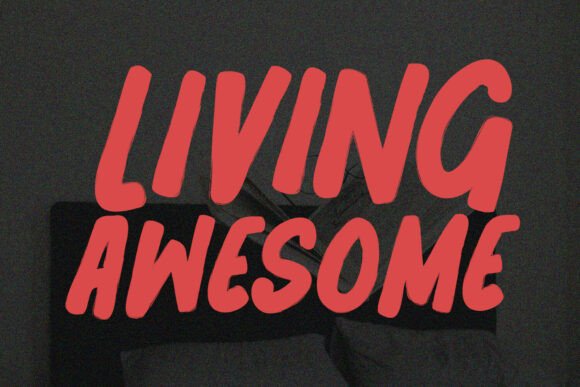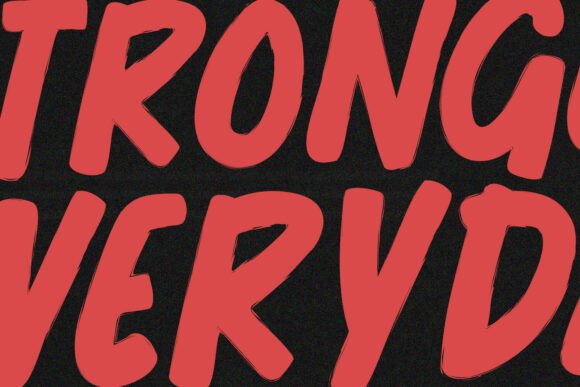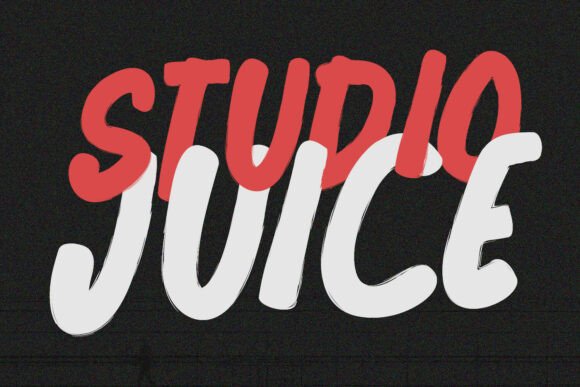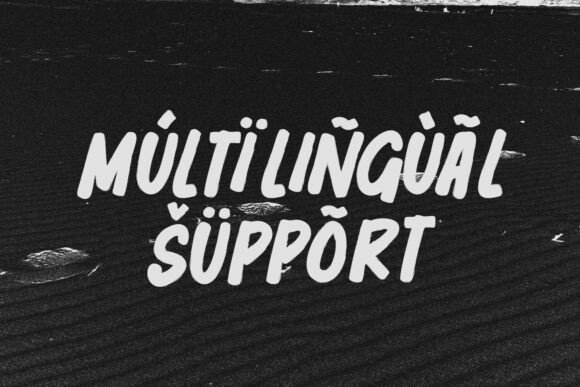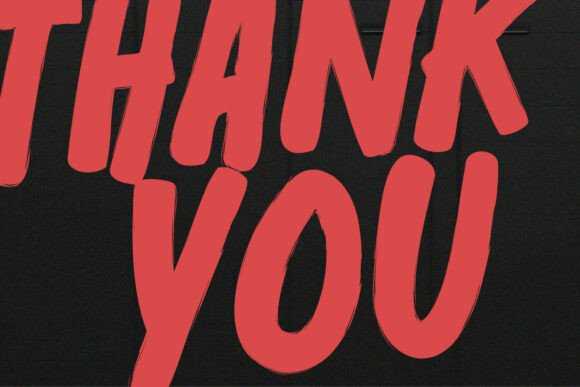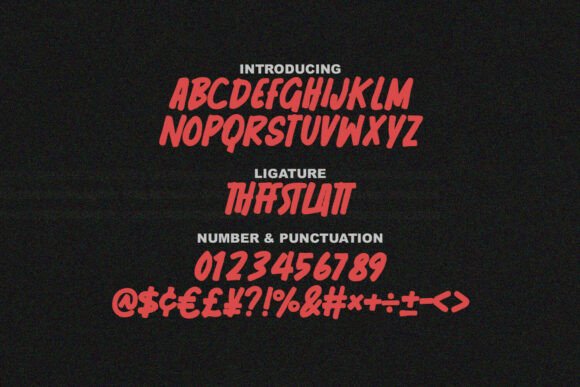
The Power of Gastetla Font: Unleashing Bold Expression in Modern Designs
Gastetla is a bold brush display font that exudes confidence and artistic personality. Its dynamic strokes and raw, hand-painted feel give it an undeniable energy and movement, making it perfect for impactful headlines, posters, logos, merchandise, and social media graphics.
An Honest Review of Gastetla Font
- 💥 **Impactful headlines**: Gastetla’s thick lettering and natural texture make it perfect for creating bold, attention-grabbing headlines that demand attention.
- 🎨 **Artistic personality**: The font’s raw, hand-painted feel gives it a unique, artistic personality that adds a touch of warmth and character to any design.
- 📸 **Versatility**: Gastetla can be used for a wide range of design projects, from posters and logos to merchandise and social media graphics.
- ✅ **Easy to read**: Despite its bold and dynamic nature, Gastetla remains surprisingly easy to read, even at smaller sizes.
- ⚠️ **Limited use in body text**: Due to its bold nature, Gastetla may not be the best choice for body text or longer blocks of text.
- 🤔 **Kerning issues**: As with any font, some users may experience kerning issues, particularly when using Gastetla at smaller sizes.
- Experiment with Gastetla’s OpenType features, such as glyphs and stylistic alternates, to add more variety to your design.
- Use Gastetla’s OpenType features, such as glyphs and stylistic alternates, to add more depth and character to your design.
The Backstory of Gastetla Font
Gastetla was designed by a team of creatives who wanted to create a font that embodied the spirit of bold expression and artistic personality. Inspired by the raw, emotional power of street art and graffiti, Gastetla was born – a font that’s equal parts confident, creative, and attention-grabbing.
Q: What is Gastetla Font?
A: Gastetla Font is a bold brush display font with dynamic strokes and a raw, hand-painted feel.
Q: What is Gastetla best used for?
A: Gastetla is perfect for impactful headlines, posters, logos, merchandise, and social media graphics.
Q: Is Gastetla easy to read?
A: Despite its bold nature, Gastetla remains surprisingly easy to read, even at smaller sizes.